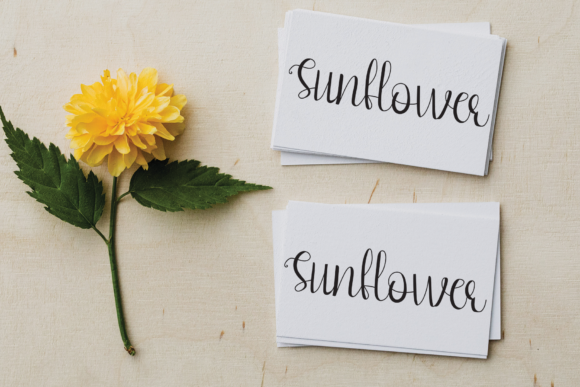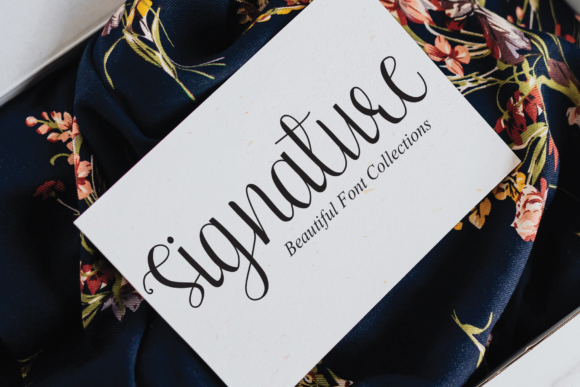
Newspaper Font
db-ku.com - Script & Handwritten -- Newspaper is a stylish and dainty script font. It is suitable for any projects such as: logos, branding projects, label, photography, watermark, special events, and all your other lovely projects that need a beautiful script taste.